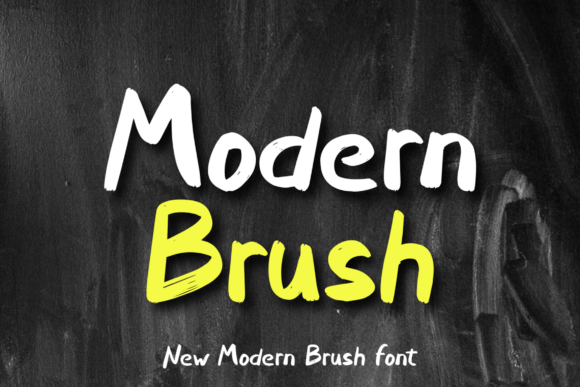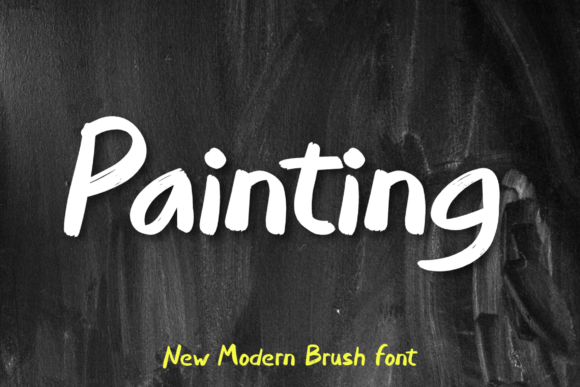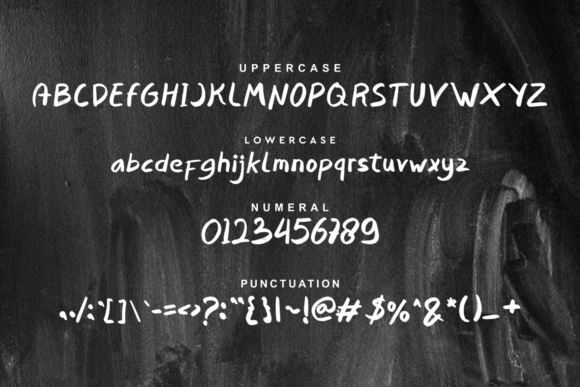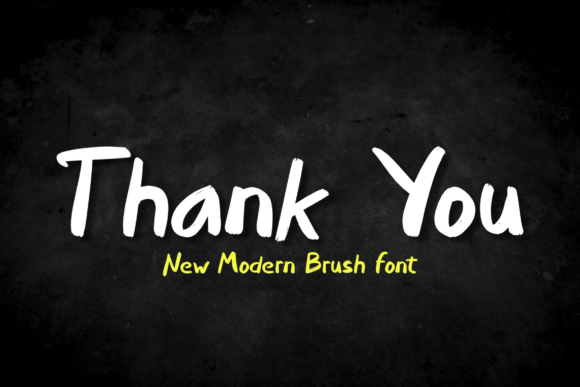
Introducing Enter Brushes Font: The Ultimate Display Font for Bold Branding
Are you tired of using the same old fonts for your branding projects? Look no further than Enter Brushes Font, a bold and authentic display font that’s perfect for making a statement. Whether you’re working on a logo, t-shirt printing, or export project, Enter Brushes is the ideal choice for designers and crafters looking to add a touch of personality to their work.
What Makes Enter Brushes Font So Special?
Enter Brushes Font is a unique and versatile font that’s designed to stand out in a wide range of contexts. Its bold and authentic style makes it perfect for use in a variety of applications, from logos and branding materials to t-shirts and other promotional products. The font’s brush-like texture gives it a distinctive, hand-crafted feel that’s sure to grab attention and leave a lasting impression.
Key Features of Enter Brushes Font
- Bold and Authentic Style: Enter Brushes Font features a bold and authentic style that’s perfect for making a statement.
- Versatile and Flexible: The font is suitable for use in a wide range of applications, from logos and branding materials to t-shirts and other promotional products.
- Brush-Like Texture: The font’s brush-like texture gives it a distinctive, hand-crafted feel that’s sure to grab attention.
- Easy to Read: Despite its bold style, Enter Brushes Font is easy to read and understand, making it perfect for use in a variety of contexts.
How to Use Enter Brushes Font in Your Design Projects
Enter Brushes Font is incredibly easy to use and can be incorporated into a variety of design projects. Here are a few ideas to get you started:
- Logo Design: Use Enter Brushes Font to create a bold and memorable logo that’s sure to stand out.
- T-Shirt Printing: The font’s bold style and brush-like texture make it perfect for use in t-shirt printing projects.
- Branding Materials: Use Enter Brushes Font to create consistent and recognizable branding materials, such as business cards and brochures.
- Social Media Graphics: The font’s bold style and versatility make it perfect for use in social media graphics and other online applications.
Why Designers and Crafters Love Enter Brushes Font
Enter Brushes Font has quickly become a favorite among designers and crafters, and for good reason. Here are a few reasons why:
- Unique and Authentic Style: The font’s bold and authentic style sets it apart from more traditional fonts.
- Easy to Use: Enter Brushes Font is incredibly easy to use and can be incorporated into a variety of design projects.
- Versatile and Flexible: The font’s versatility and flexibility make it perfect for use in a wide range of applications.
- High-Quality Design: Enter Brushes Font is designed to high standards, ensuring that it looks great in any context.
Enter Brushes Font is a bold and authentic display font that’s perfect for designers and crafters looking to add a touch of personality to their work. Its unique and versatile style makes it suitable for use in a wide range of applications, from logos and branding materials to t-shirts and other promotional products. With its ease of use, high-quality design, and flexibility, Enter Brushes Font is an excellent choice for anyone looking to make a statement with their design work.